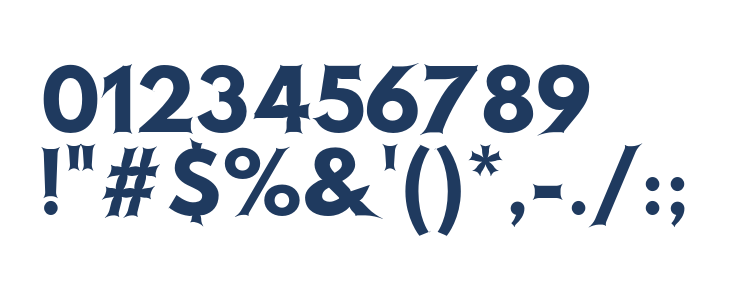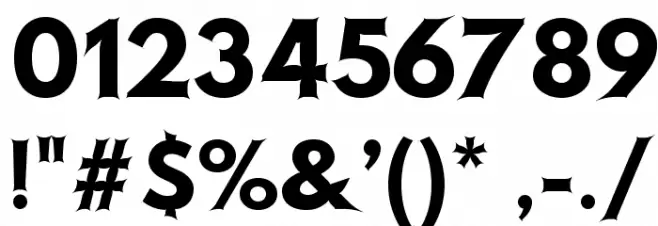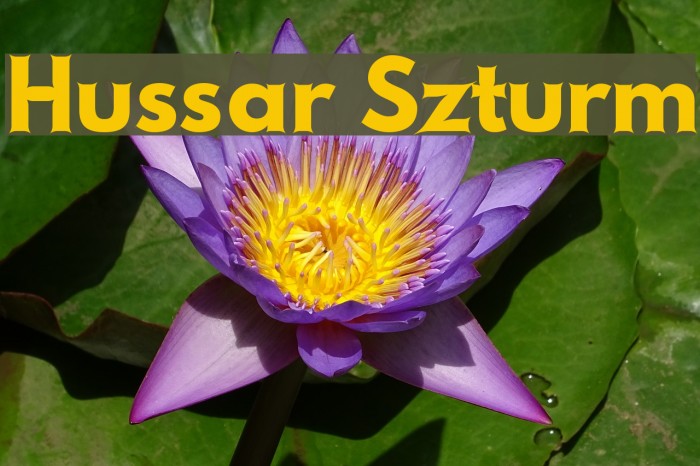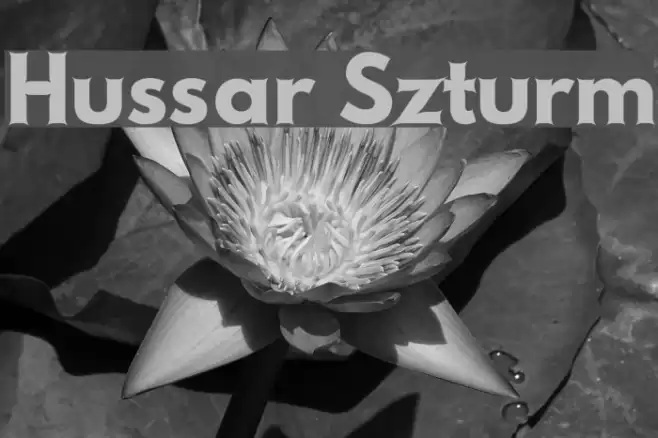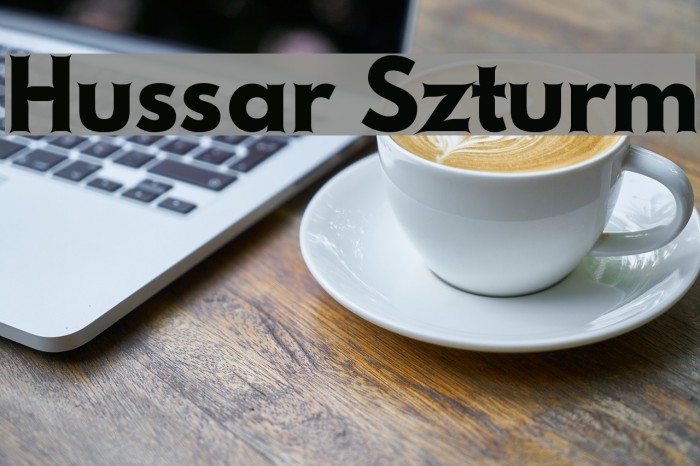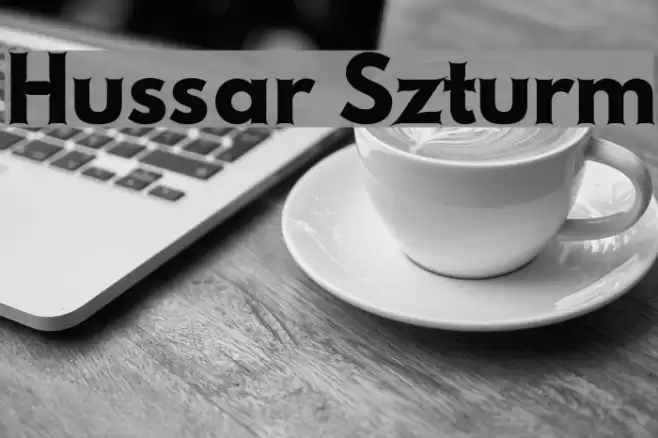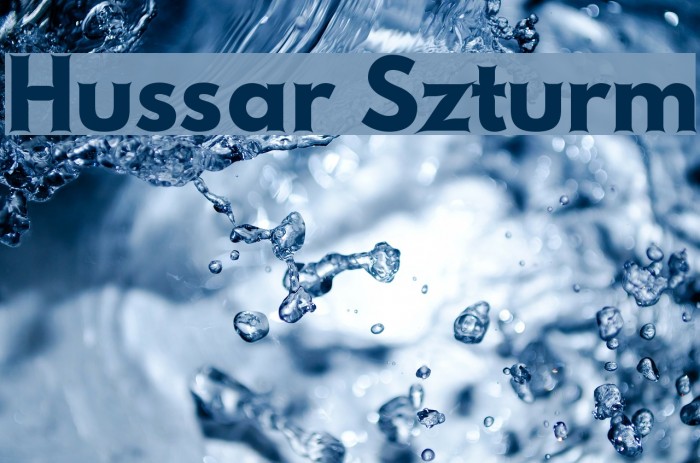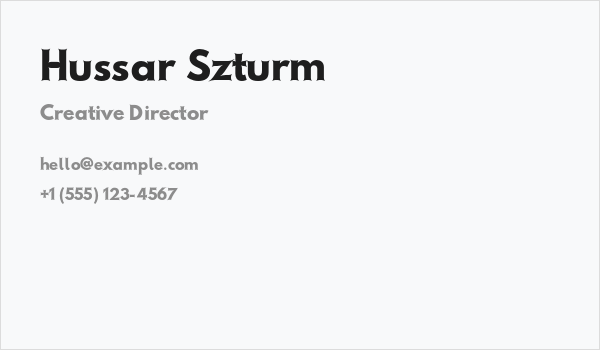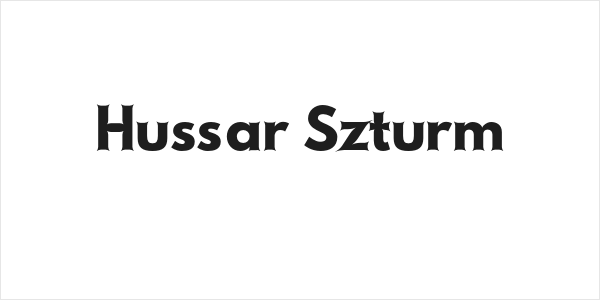
Hussar Szturm Font
Hussar Szturm Description
This font features a bold and striking design with sharp, angular serifs that give it a distinctive and commanding presence. The uppercase letters are particularly bold, with a strong emphasis on vertical lines and pointed serifs that create a sense of authority and strength. The lowercase letters maintain this boldness while offering a slightly softer, more rounded appearance, providing a nice contrast to the uppercase. The numerals are equally bold and consistent with the overall style, ensuring readability and impact. Special characters are designed with the same attention to detail, making them stand out while remaining cohesive with the rest of the font. This font's unique style makes it suitable for projects that require a strong, impactful visual statement.